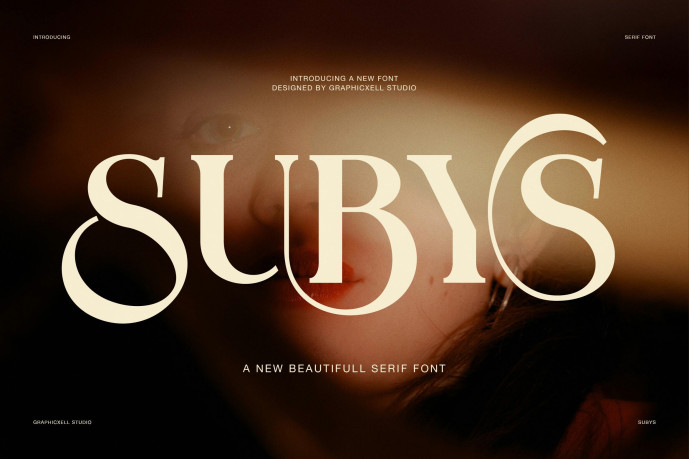
Subys Font
Designer: Arfianto
Subys is an elegant display serif font that brings a strong sense of luxury, fashion, and modern editorial style. Moreover, it is designed with high contrast strokes, smooth curves, and refined letter shapes that create a powerful visual impact. As a result, it feels both stylish and premium in every use.